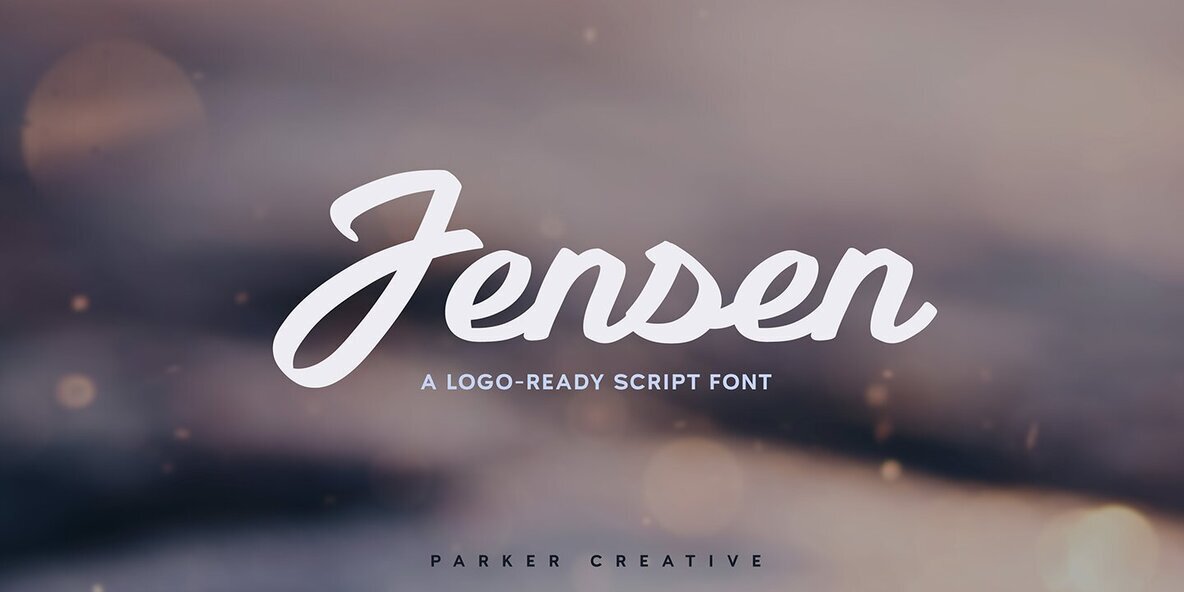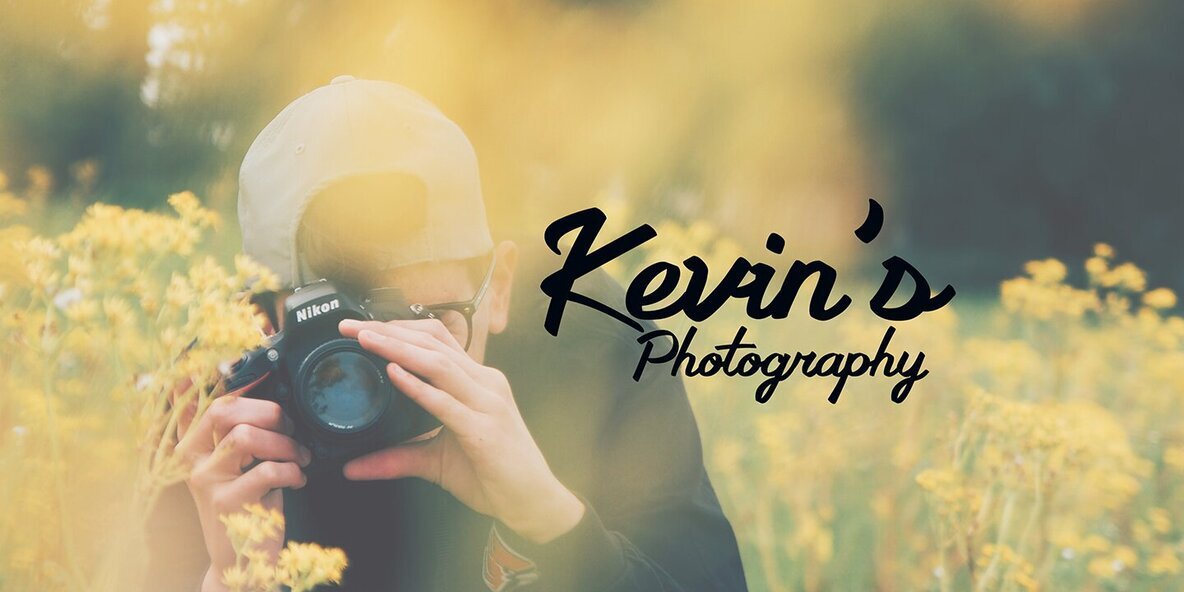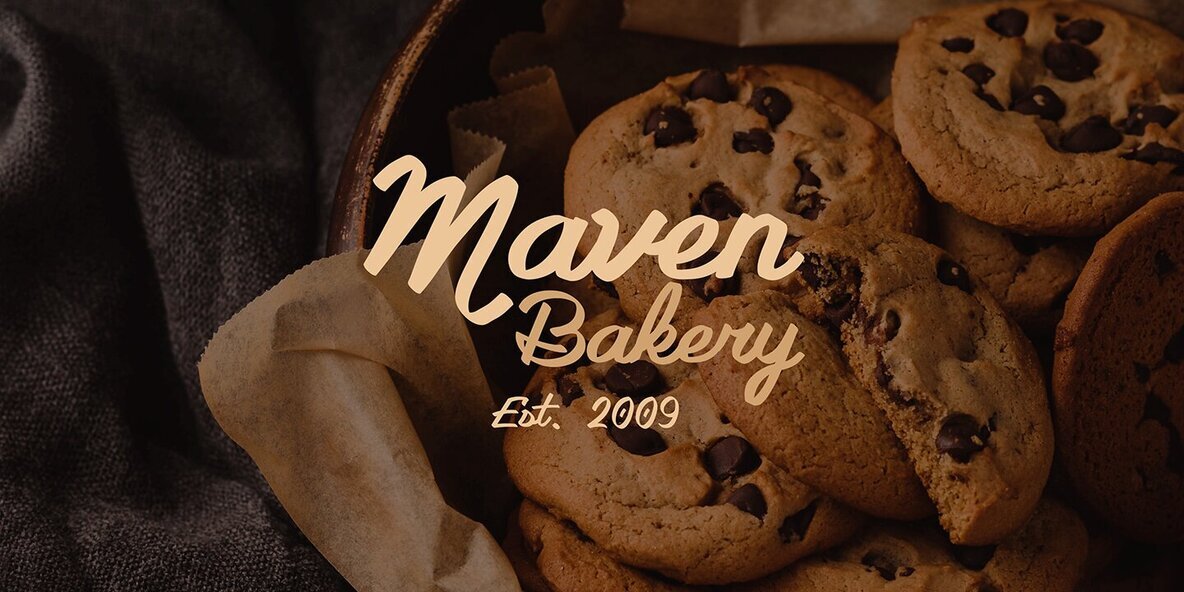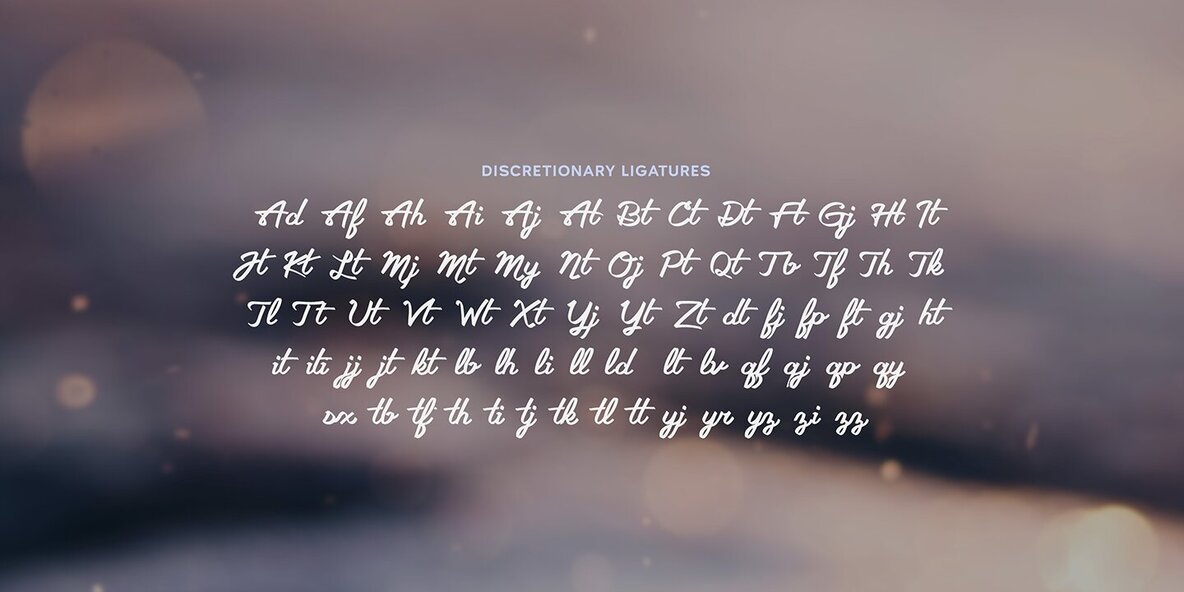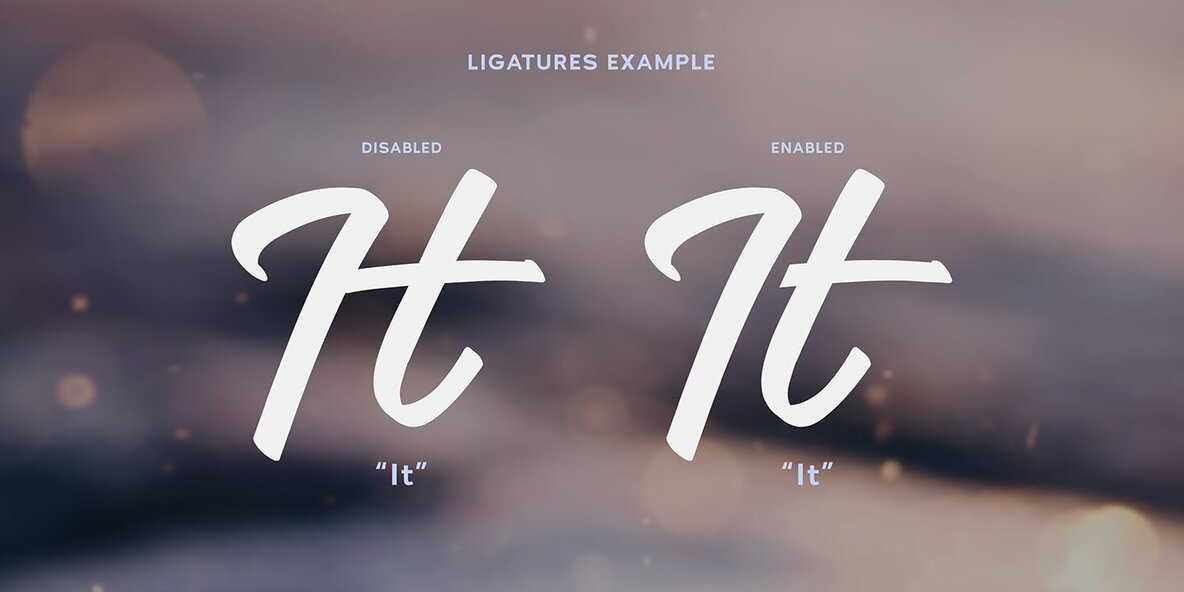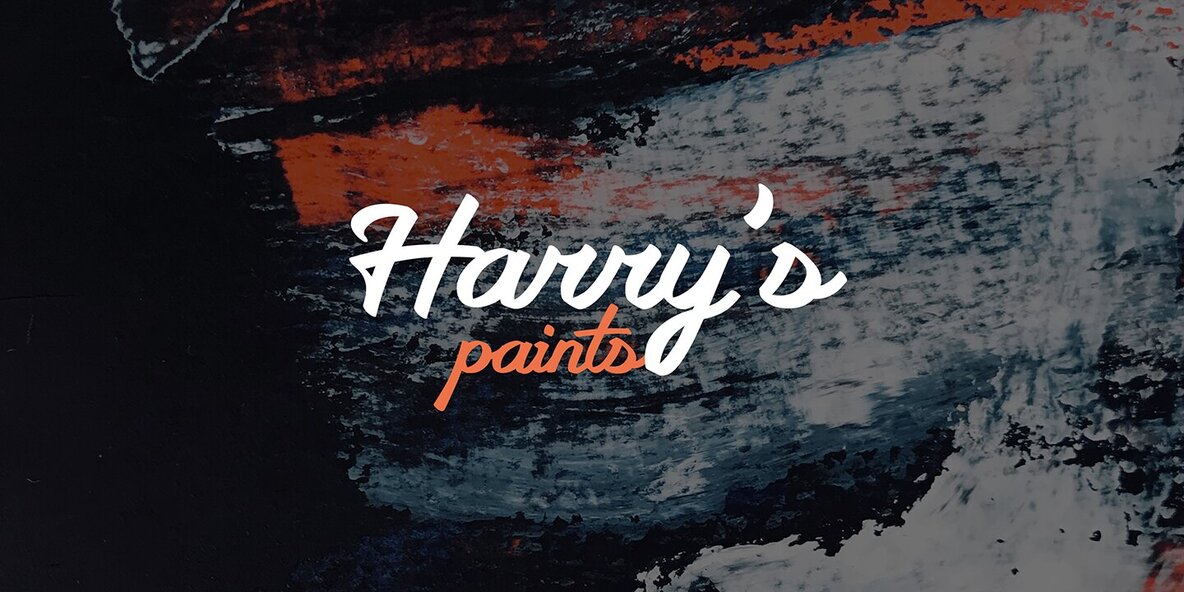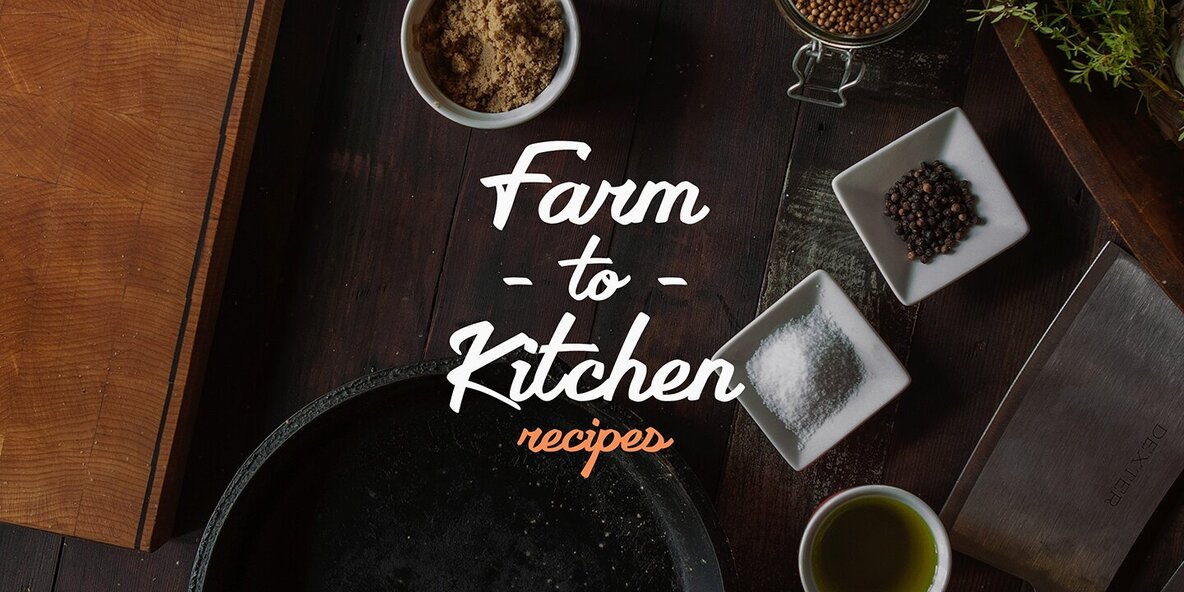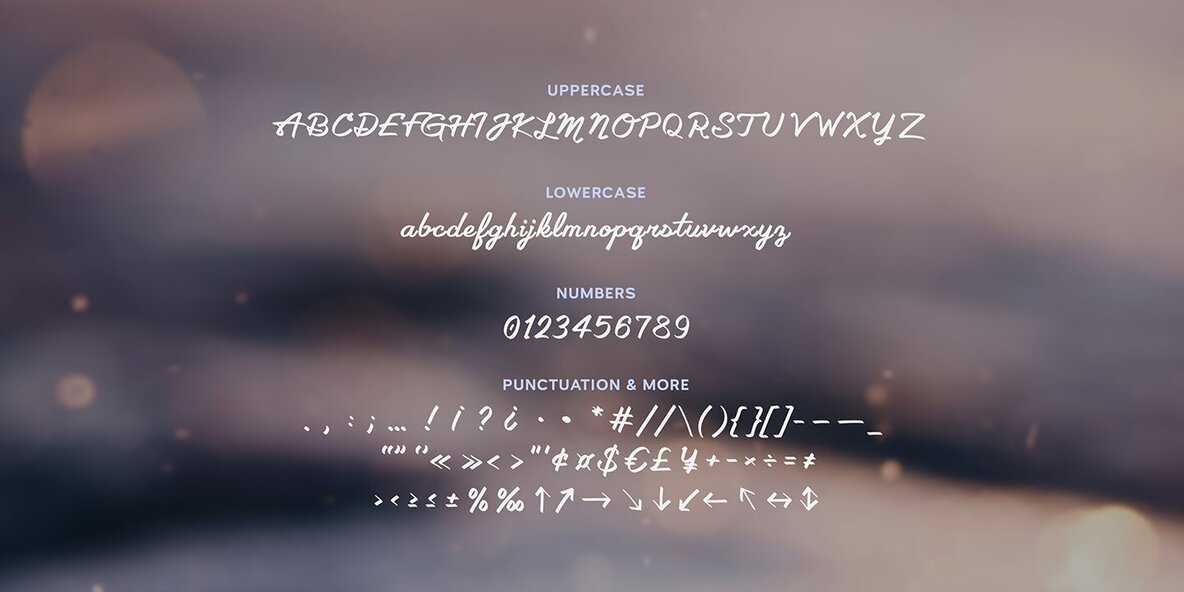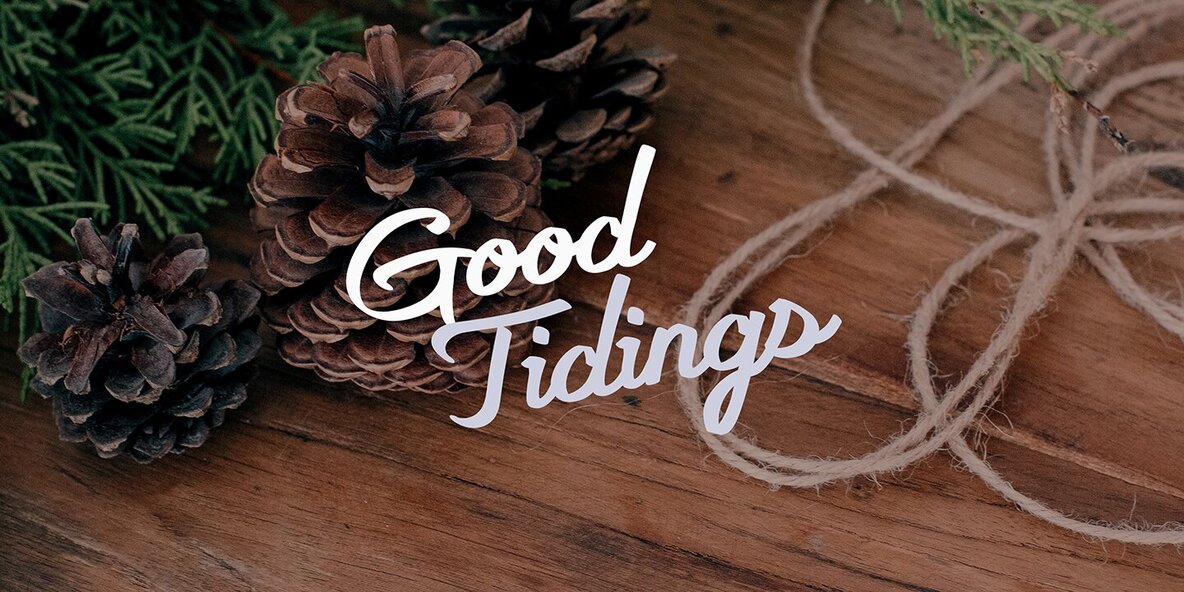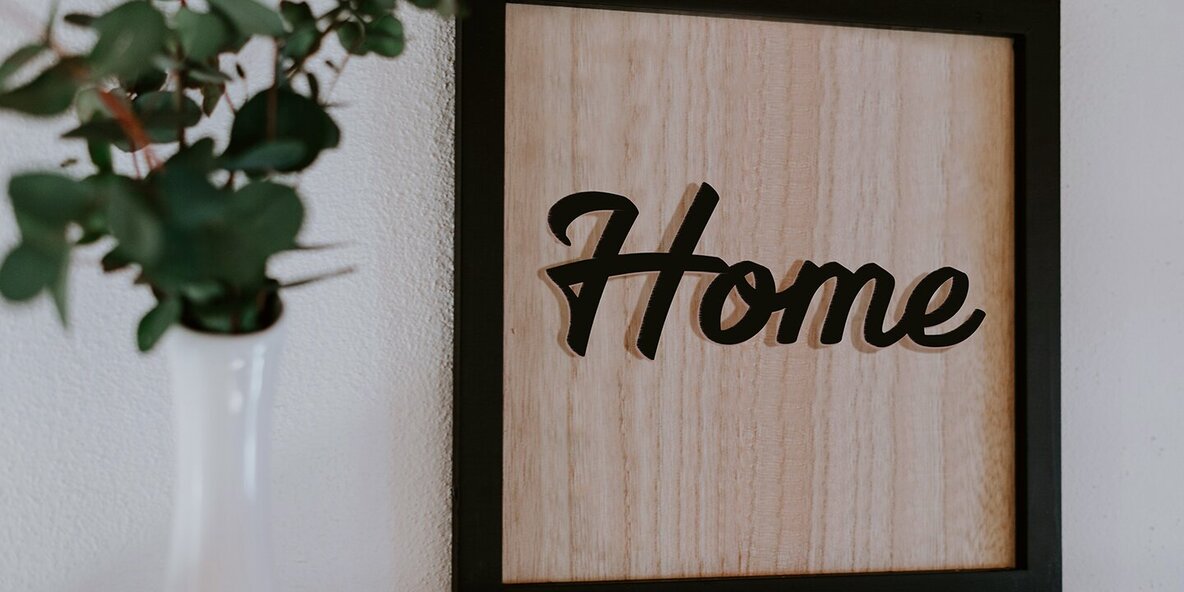
Jensen Font
Jensen Regular
Jensen stands out as a versatile calligraphic script font designed with logos and branding in mind. Its high-contrast angled strokes and expressive letterforms deliver a confident, stylish tone, helping your designs command attention. The font's organic flow and detailed ligatures ensure that every word feels truly unique while maintaining readability in both large and small applications. Whether you're refining a luxury brand, sign, or custom monogram, Jensen’s modern script structure adapts with elegance and clarity. The thoughtfully crafted letter shapes work equally well in digital and print formats, making this font a reliable asset for creative professionals.Jensen Script Font: Bold Character for Distinctive Branding